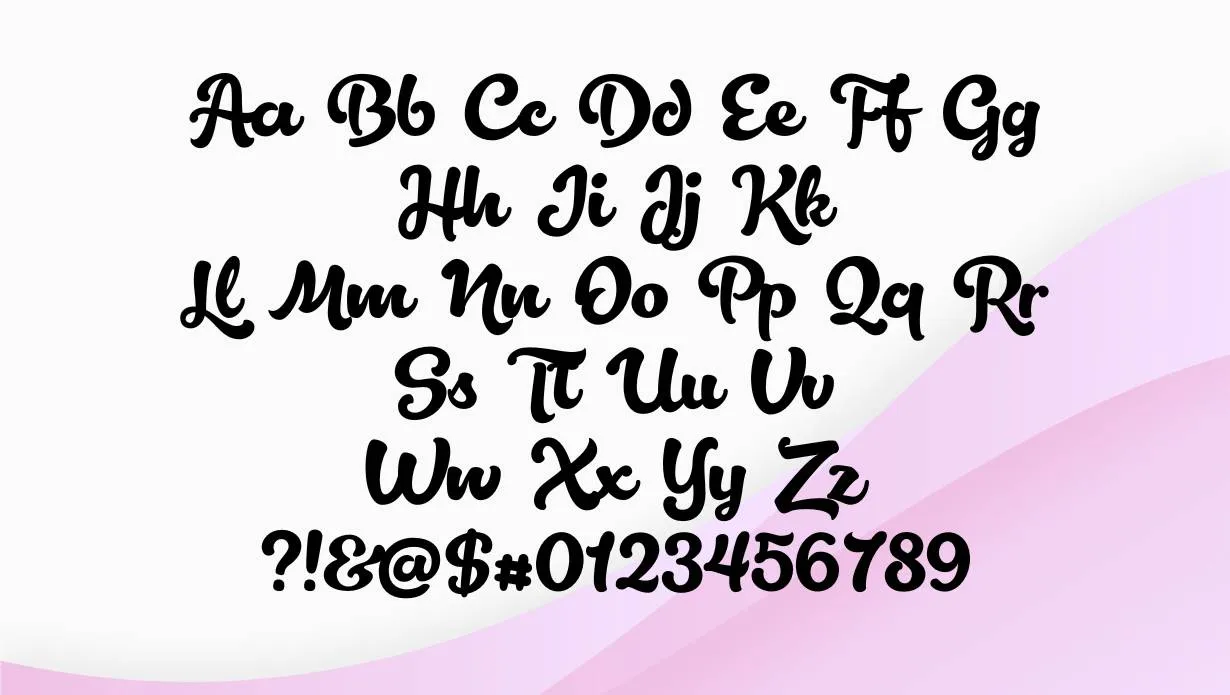
Lactosa Font is playful and whimsical, perfect for children’s books, posters, and creative designs. Often available in file formats like TTF and OTF, it ensures usability across a range of design applications.
Its playful and creative style adds a touch of fun and imagination to any design it’s incorporated into, making the text feel like a story waiting to unfold. The brush script font can be used to create exceptional designs with significant impact.
| Name | Lactosa Font |
| Designer | Nasir Udin |